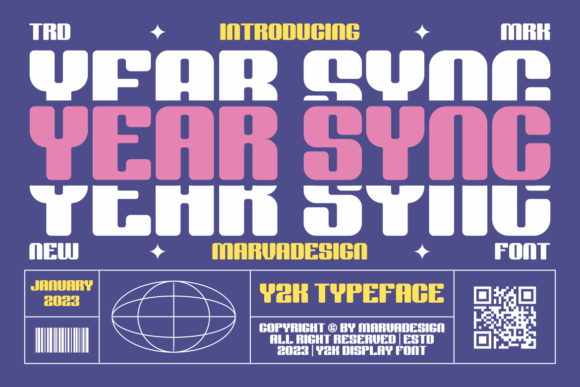
Introducing Year Sync Font – A Modern Y2K Font
In the ever-evolving world of digital design, fonts play a crucial role in shaping the visual identity of a brand. With the resurgence of Y2K aesthetics, designers are on the lookout for fonts that capture the essence of this iconic era. This is where Year Sync Font comes into play – a modern Y2K font designed to elevate your branding projects with its unique charm.
What is Year Sync Font?
Year Sync Font is an authentic display font that embodies the spirit of the Y2K era. Its modern design makes it an ideal choice for a wide range of applications, from logo creation to template design, product branding, and more. The font’s versatility and distinctive style ensure that it stands out in various contexts, making it a valuable addition to any designer’s toolkit.
Design Characteristics of Year Sync Font
Year Sync Font boasts several design characteristics that make it a standout in the world of typography. Its clean lines, geometric shapes, and carefully crafted letterforms evoke a sense of nostalgia while maintaining a modern edge. The font’s design is optimized for digital platforms, ensuring that it looks great on various devices and screen sizes.
- Geometric shapes: The font features geometric shapes that give it a futuristic and modern look.
- Clean lines: The clean lines and simple shapes make the font highly legible.
- Carefully crafted letterforms: Each letterform is carefully designed to ensure that the font looks great in various contexts.
Uses of Year Sync Font
Year Sync Font is an incredibly versatile font that can be used in a wide range of applications. Here are some of the ways you can use this font to elevate your designs:
- Logo creation: Use Year Sync Font to create a unique and memorable logo for your brand.
- Template design: The font is perfect for designing templates for presentations, brochures, and other marketing materials.
- Product branding: Use Year Sync Font to create a consistent visual identity for your products.
- Social media graphics: The font is great for creating social media graphics, such as Instagram posts and Facebook banners.
Benefits of Using Year Sync Font
There are several benefits to using Year Sync Font in your designs. Here are some of the advantages of using this font:
- Unique style: Year Sync Font has a unique style that sets it apart from other fonts.
- High legibility: The font is highly legible, making it perfect for use in a wide range of contexts.
- Versatility: The font is incredibly versatile and can be used in various applications.
- Modern look: Year Sync Font has a modern look that is sure to appeal to designers who want to create a contemporary visual identity.
Tips for Using Year Sync Font
Here are some tips for using Year Sync Font effectively in your designs:
- Use it sparingly: Use Year Sync Font sparingly to create a visual impact.
- Pair it with other fonts: Experiment with pairing Year Sync Font with other fonts to create a unique visual identity.
- Adjust font size: Adjust the font size to create visual hierarchy and emphasis.
- Experiment with colors: Experiment with different colors to find the perfect combination that works for your brand.
Year Sync Font is a modern Y2K font that is sure to elevate your branding projects with its unique charm. Its versatility, high legibility, and modern look make it an ideal choice for designers who want to create a contemporary visual identity. By following the tips outlined in this article, you can use Year Sync Font effectively in your designs and create a lasting impression on your audience.